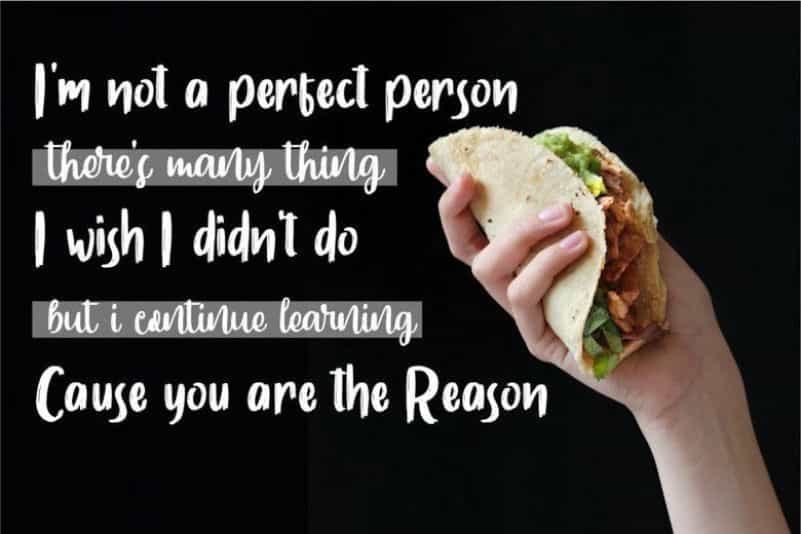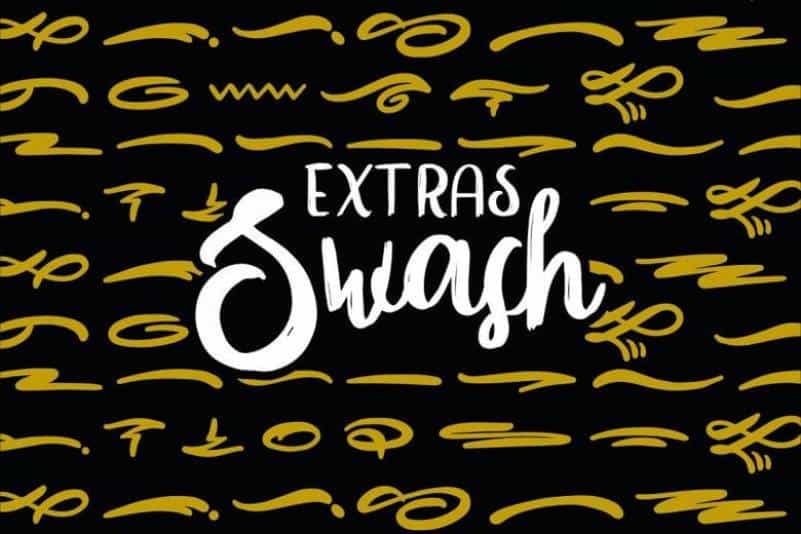
Gradually Font is a contemporary brush font. This is a font that is specifically designed with the help of a rough brush, which gives it an abrupt and eye-catching initial character.